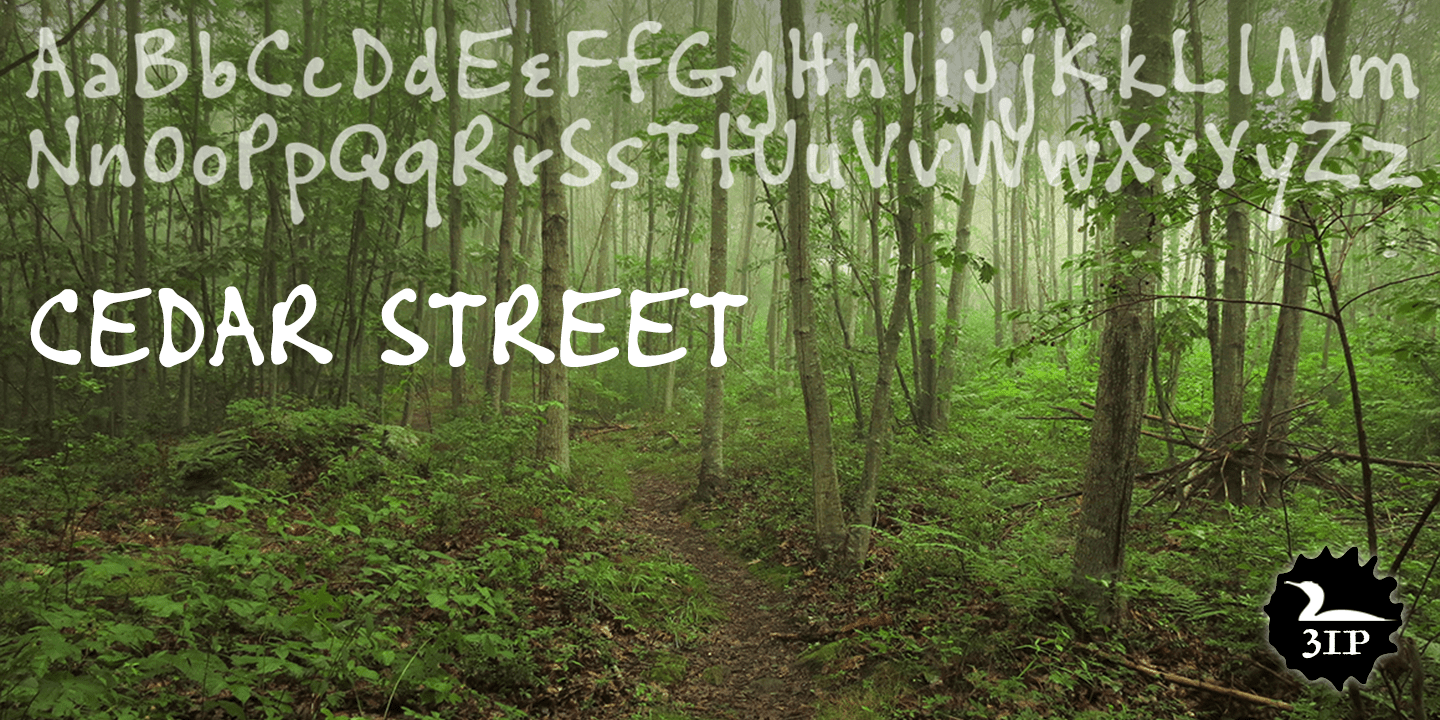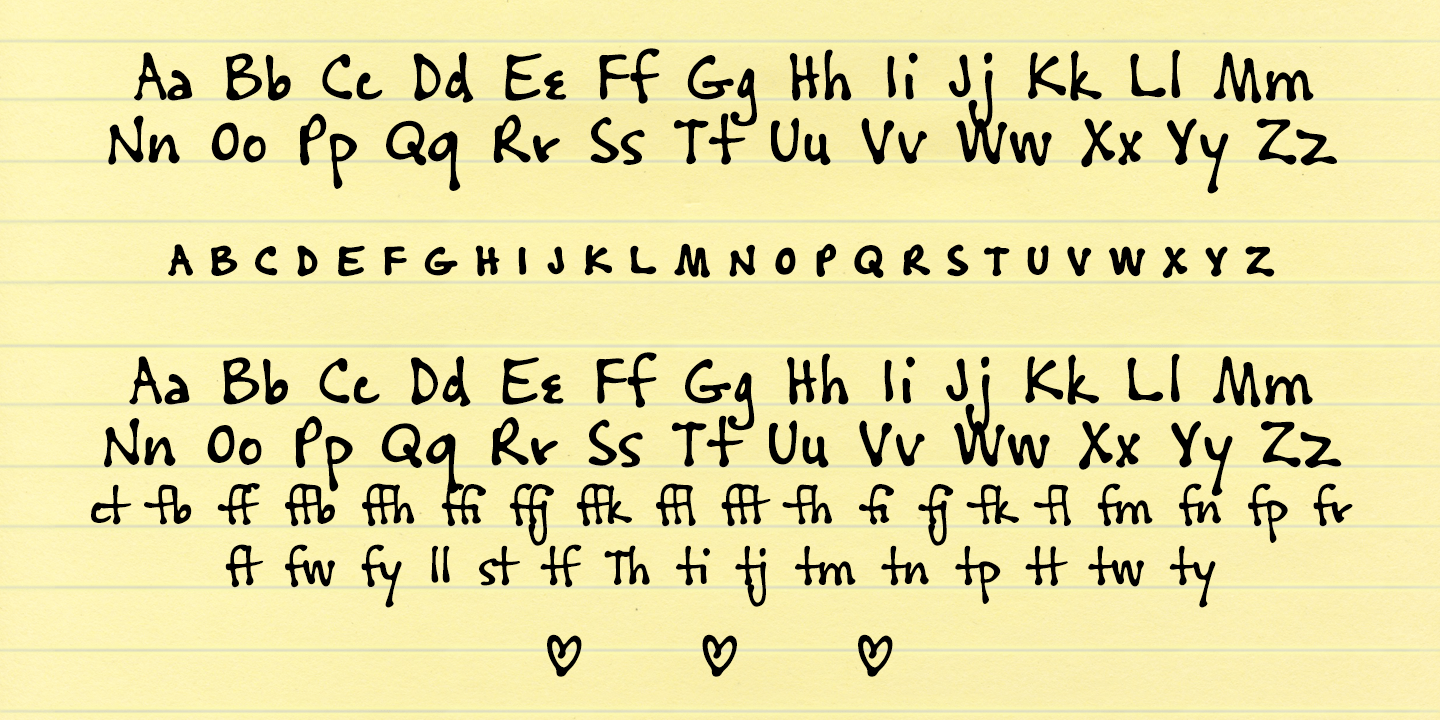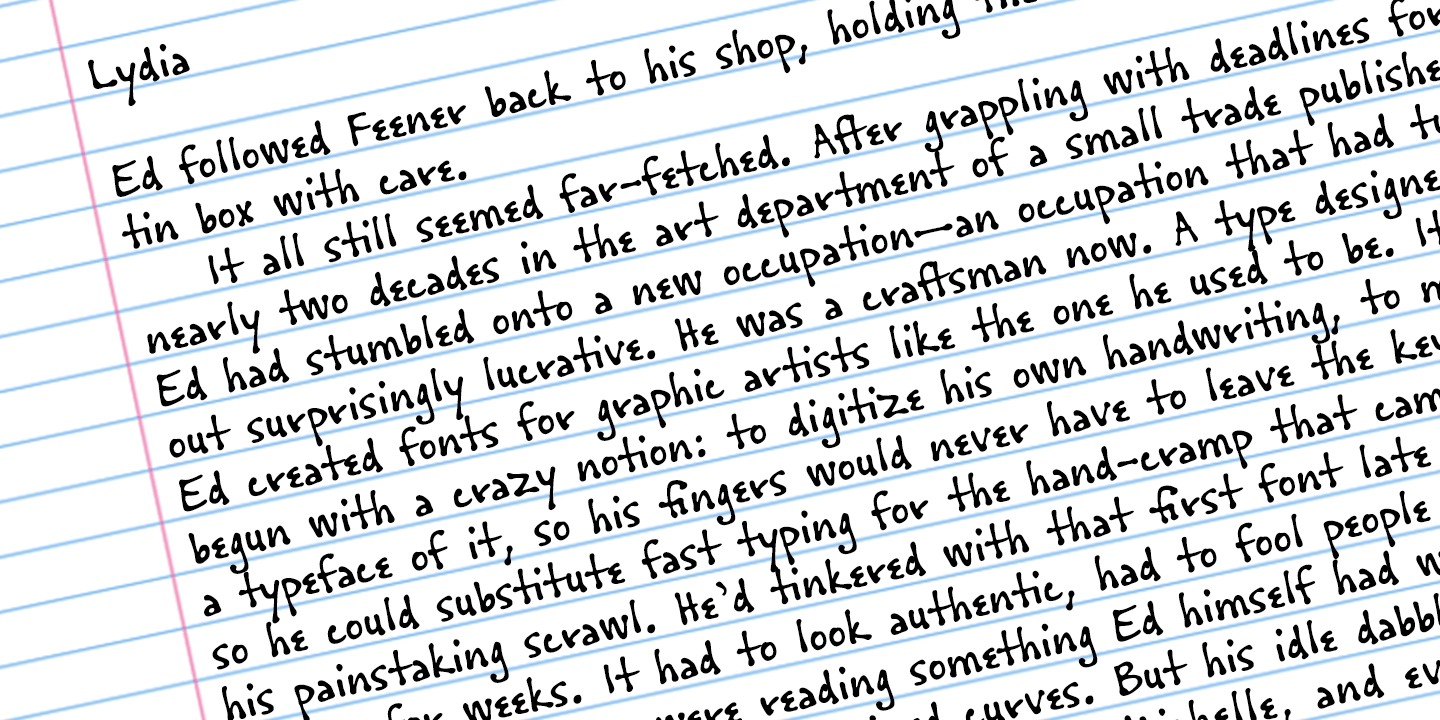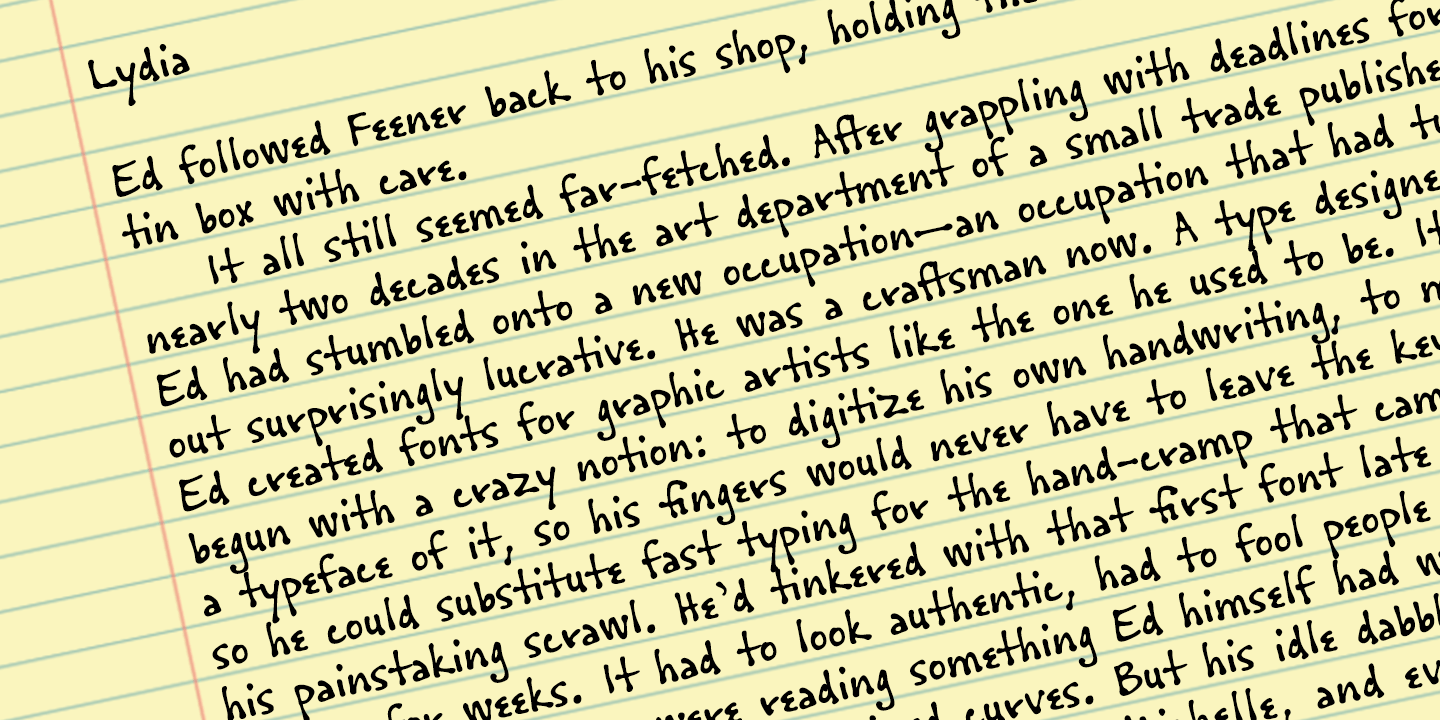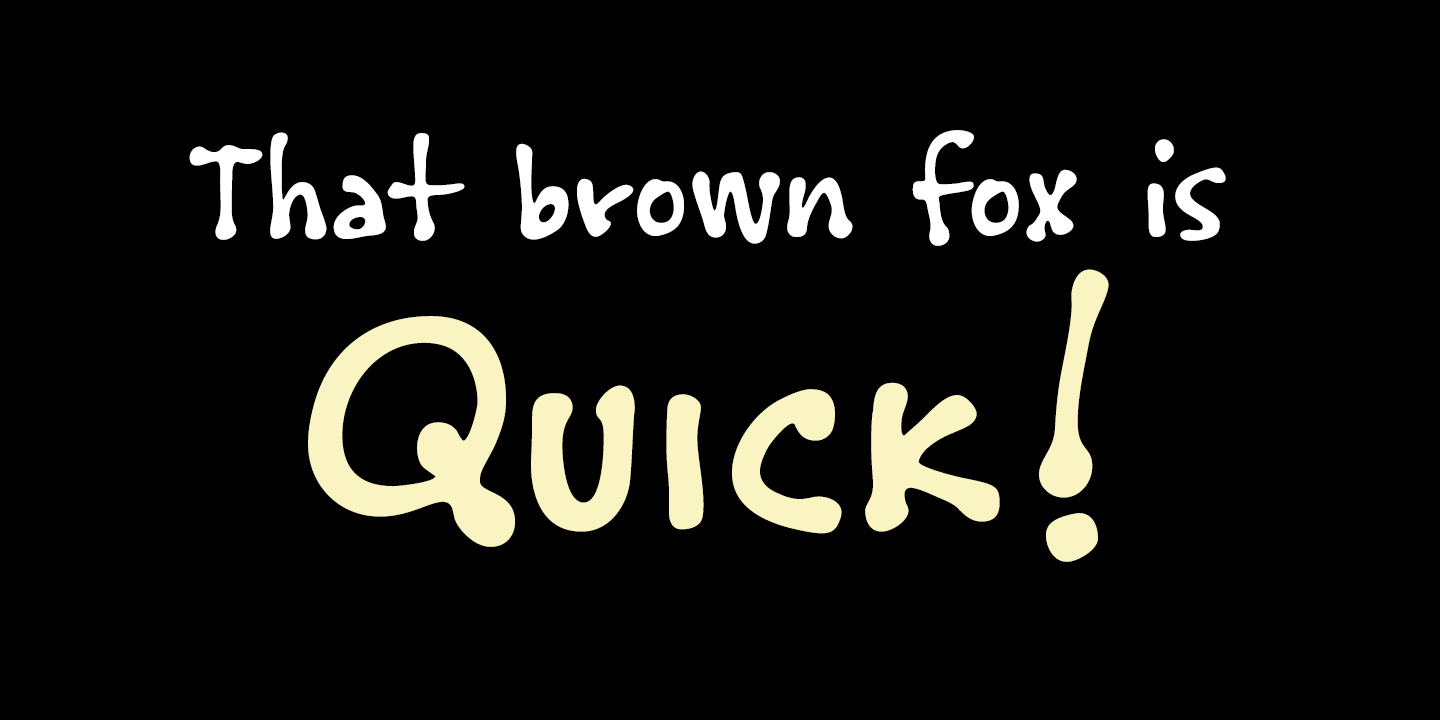
Cedar Street
Font Family by Three Islands Press
There's something satisfying about tweaking to perfection a typeface based on the particular style of lettering applied to a particular kind of paper by a particular human hand.
One day, in pursuit of this curious sense of satisfaction, I sat down with a porous pad of lined note paper and printed out the alphabet with a ballpoint pen. I found particularly interesting the bulbous ends of the strokes where the ink soaked in. I couldn't help myself: I drew out the rest of the character set, scanned, hand-traced, and -- as with all 3IP font designs -- manipulated every glyph to an obsessive degree. Named it Cedar Street, after a favorite address of mine.